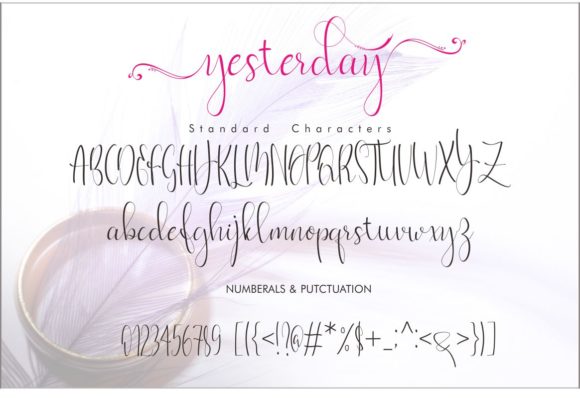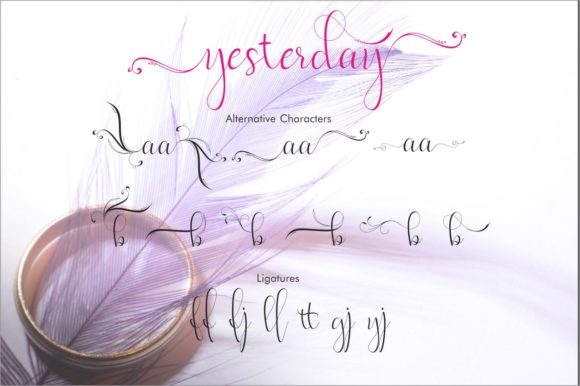
About Yesterday Font
Yesterday is an elegant script font with a contemporary atmosphere and impeccable form, inspired by timeless classic calligraphy. Not too thin and not too thick, balanced and varied, this font was designed to enhance the beauty of your projects. Yesterday is PUA encoded which means you can access all of the glyphs and swashes with ease!